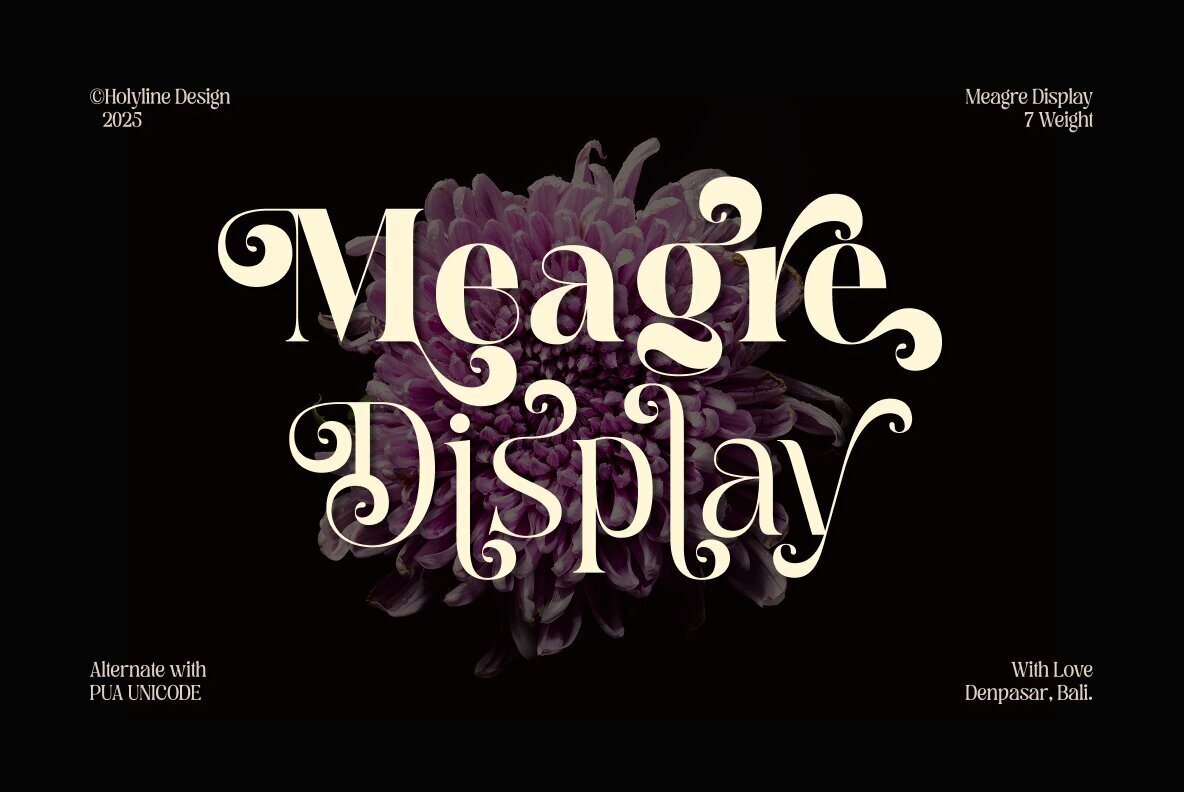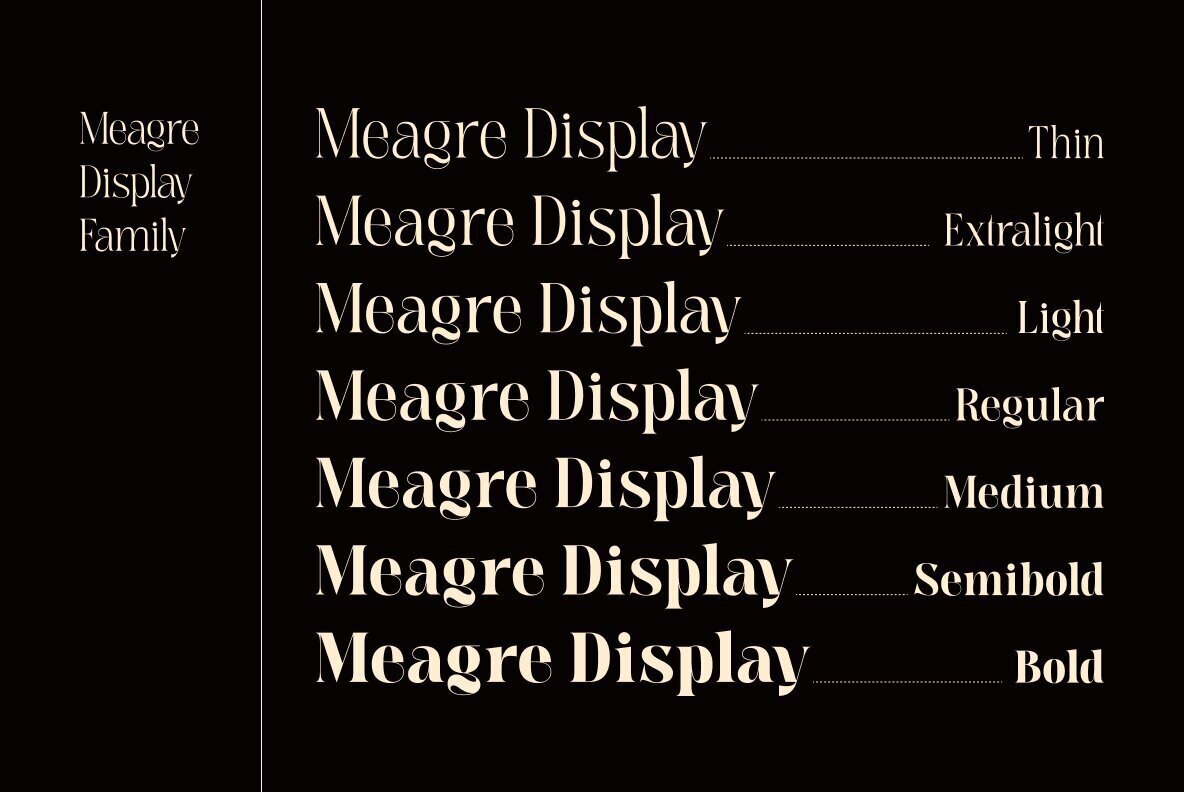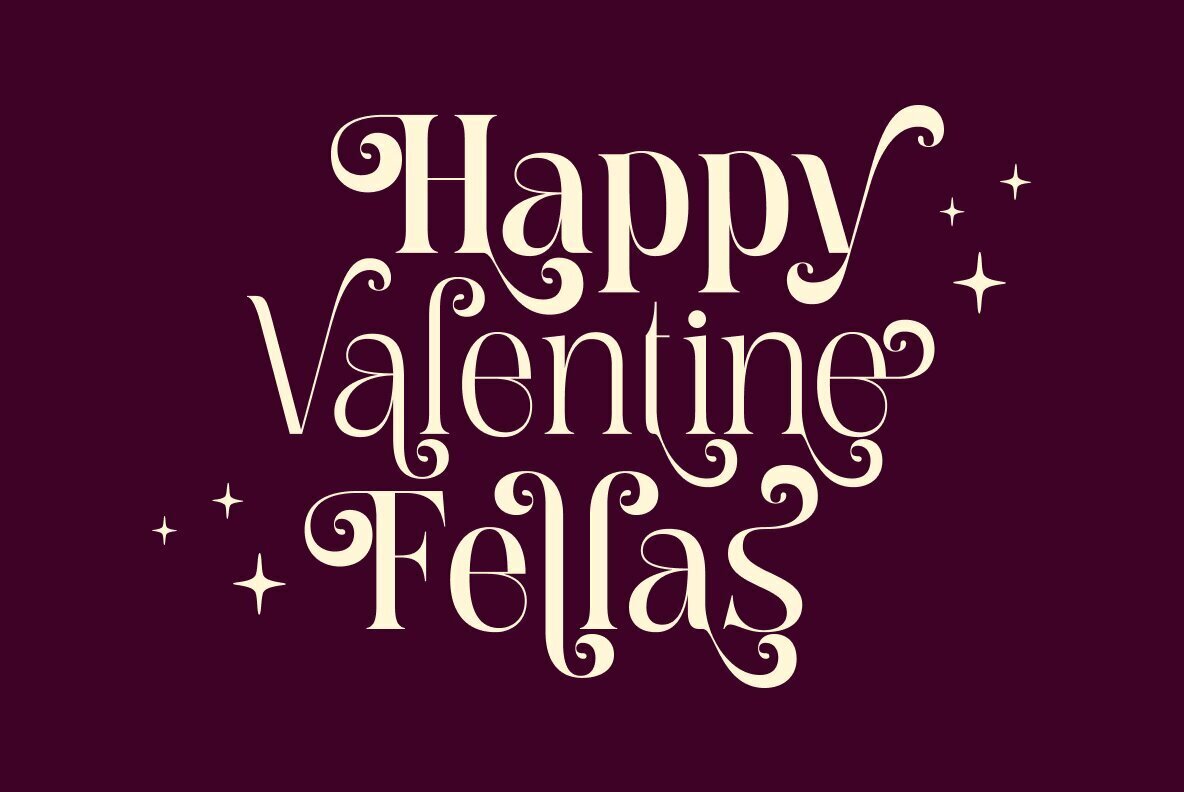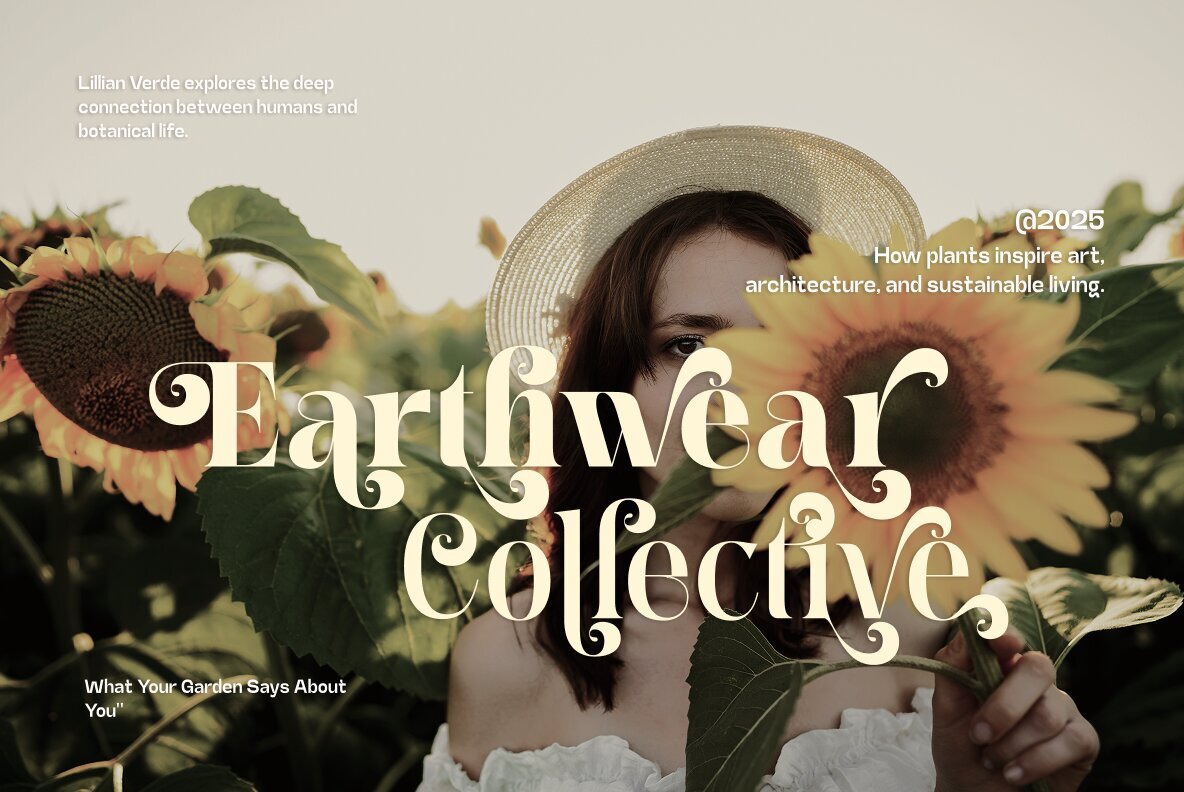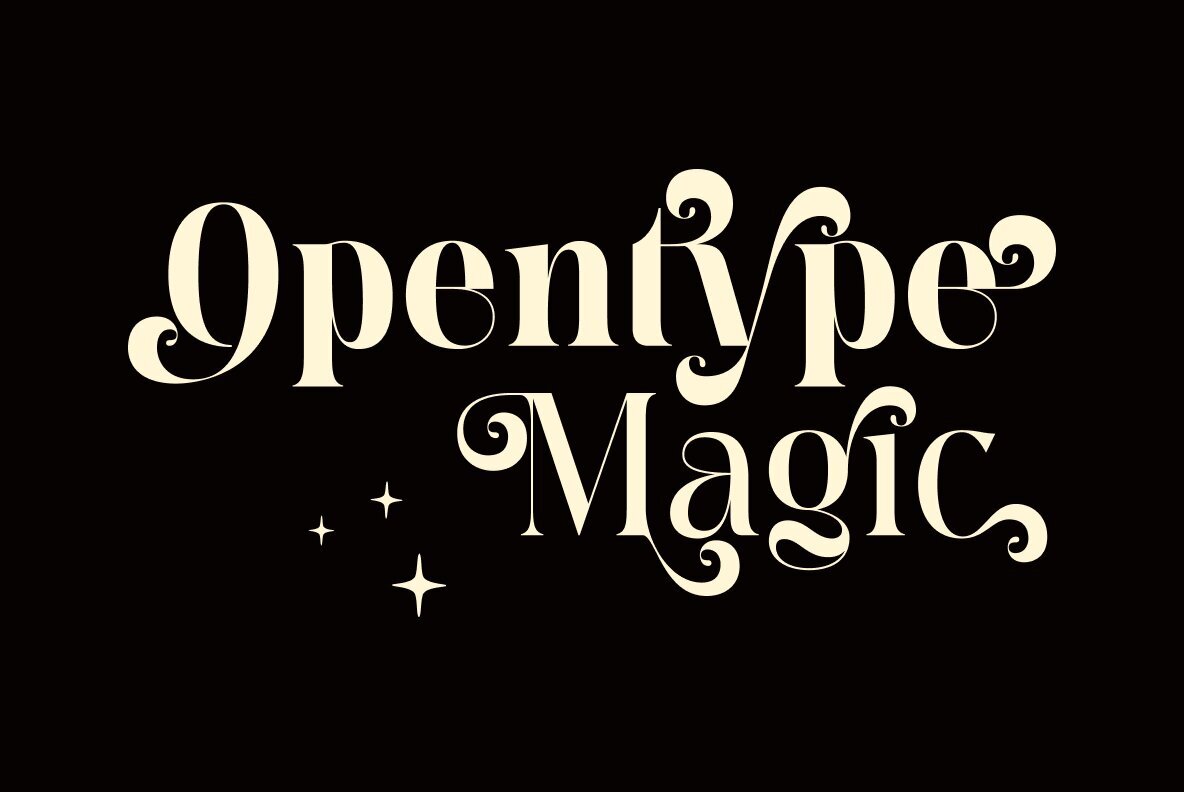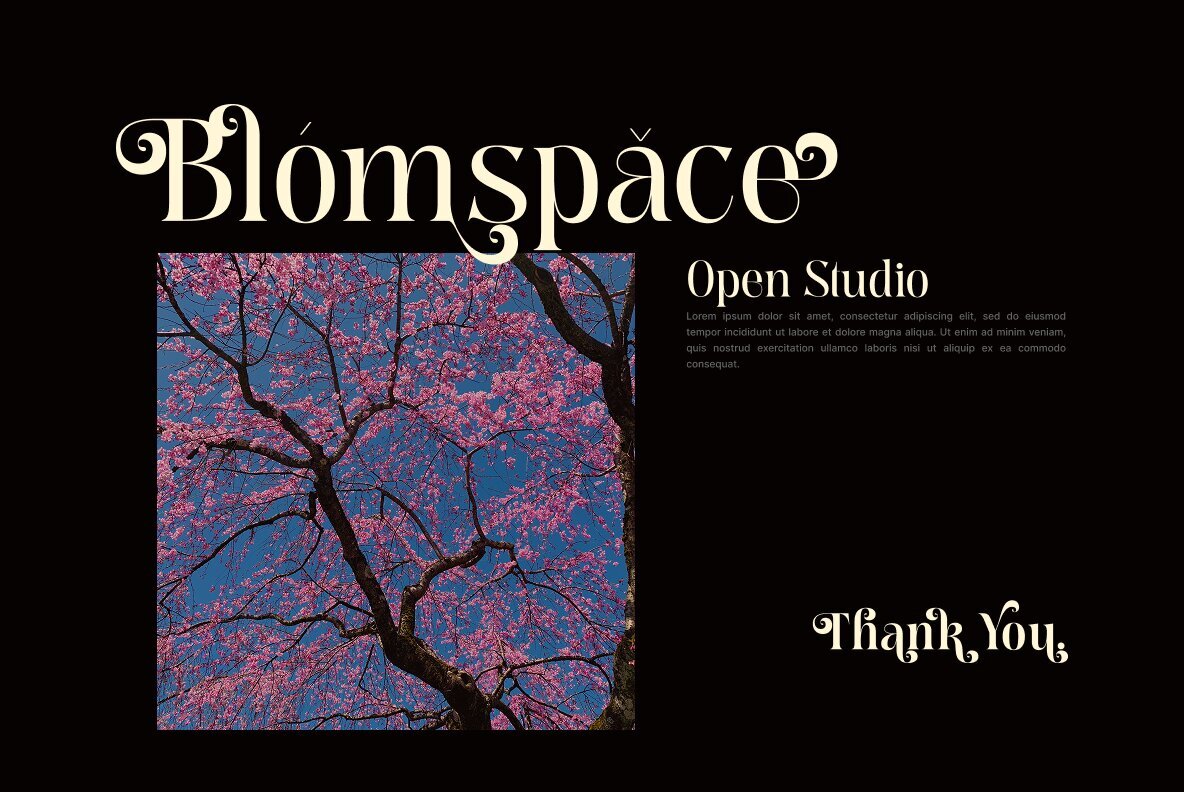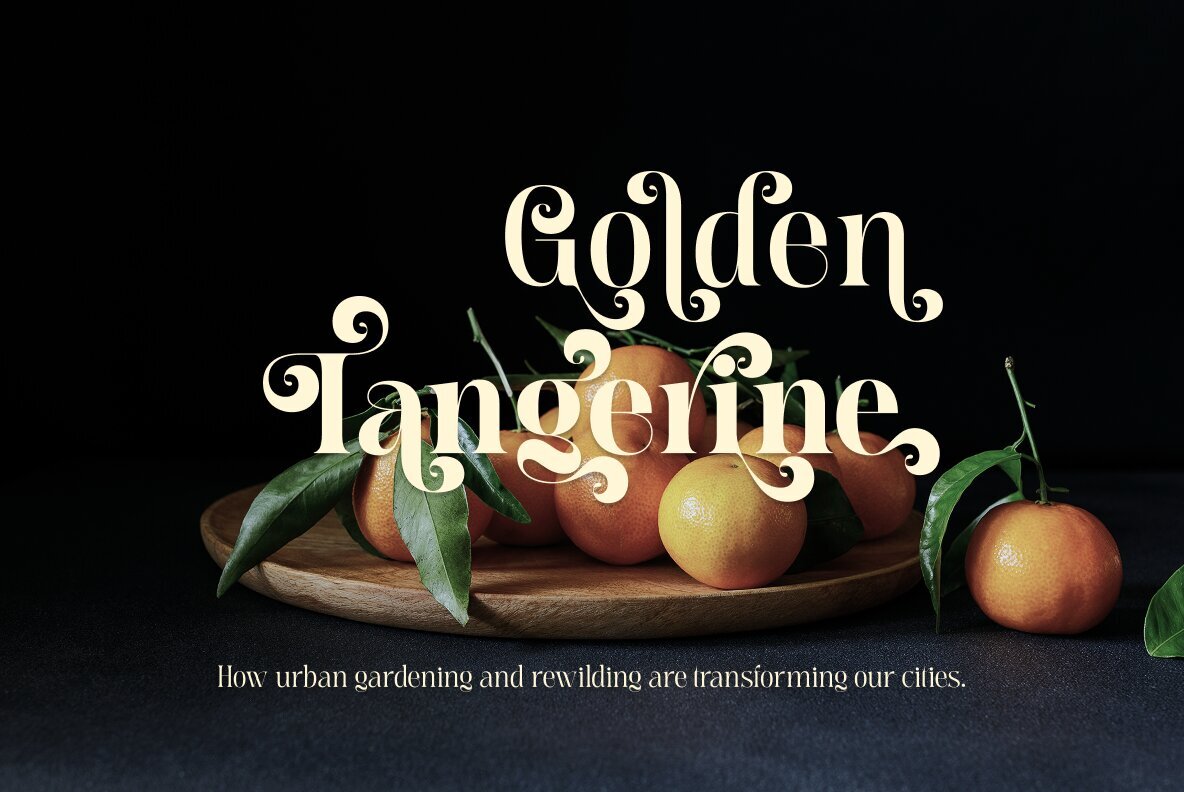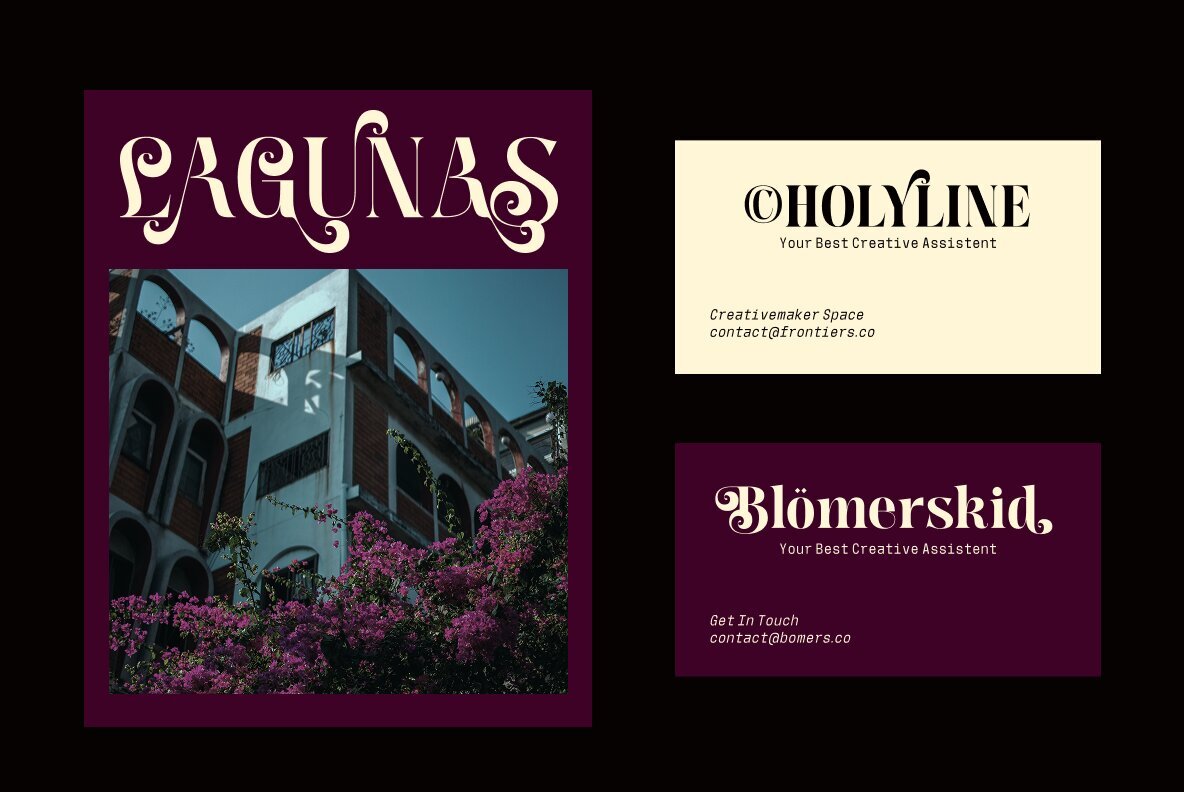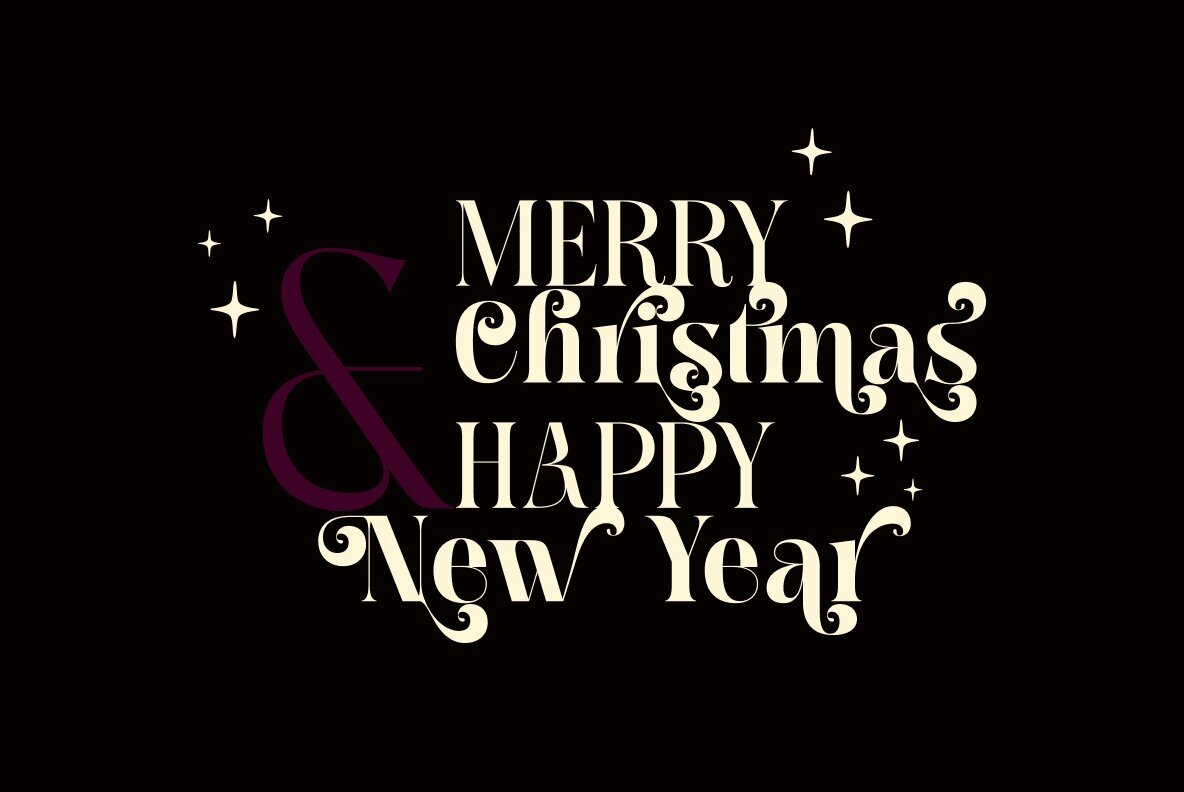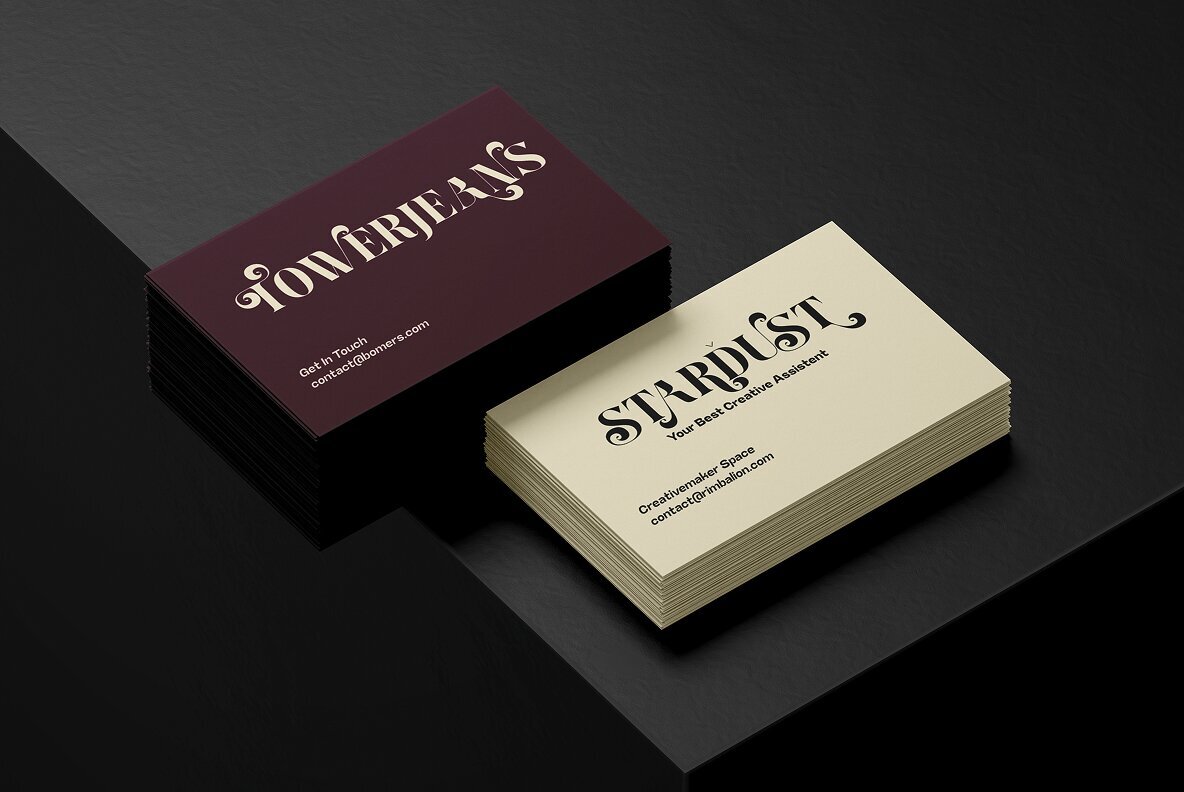
Meagre Display Font
Meagre Display is an expressive serif display font that seamlessly merges vintage aesthetics with modern sophistication. Influenced by classic magazine typography, this font adds elegance and character to various designs. Available in seven weights, from thin to bold, Meagre Display provides the versatility needed for both striking statements and intricate compositions.
In addition to its range of weights, Meagre Display offers a wide array of alternates, enabling designers to craft flowing curves and precisely detailed letterforms with ease. This makes it an excellent choice for editorial layouts, branding, and projects that seek to blend nostalgia with a contemporary edge. The harmonious balance between playfulness and sophistication makes Meagre Display an invaluable asset to a designer's typographic repertoire.